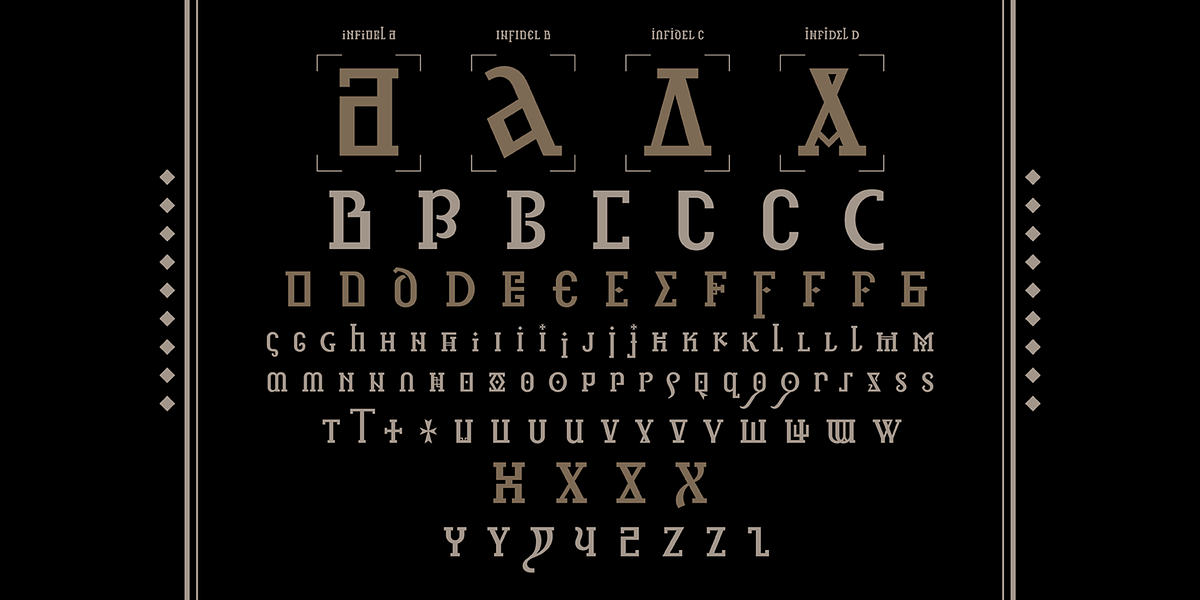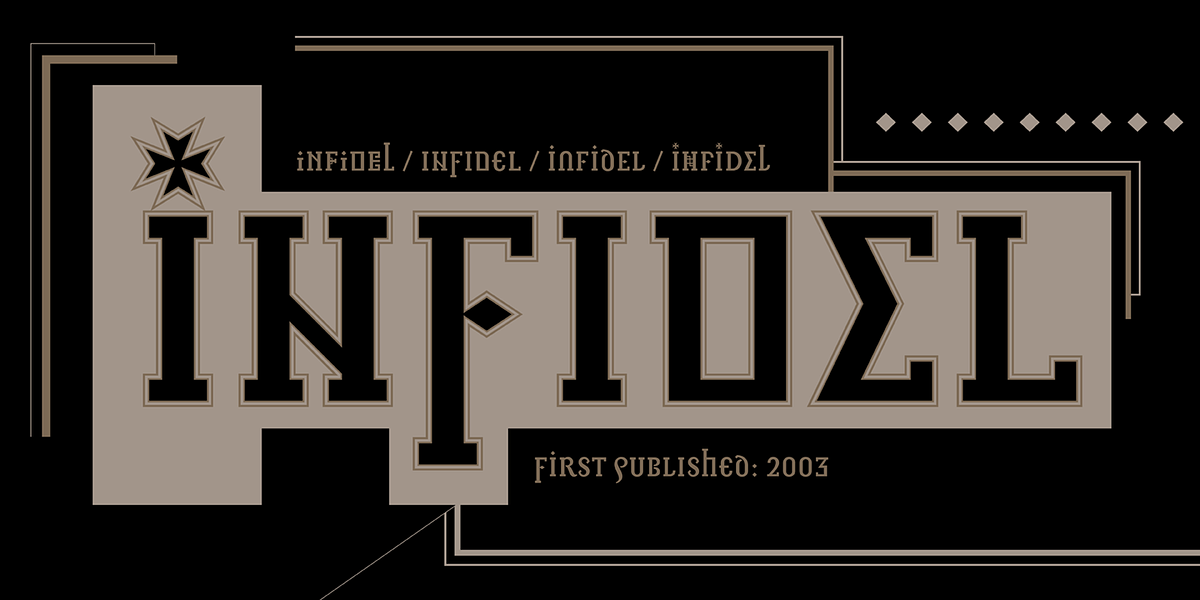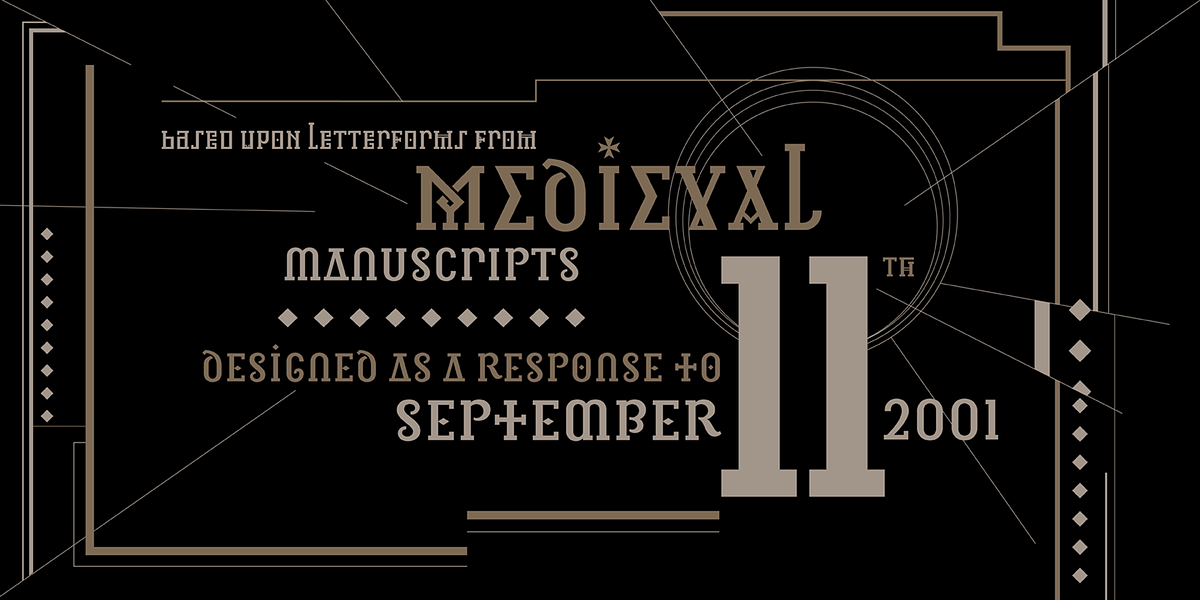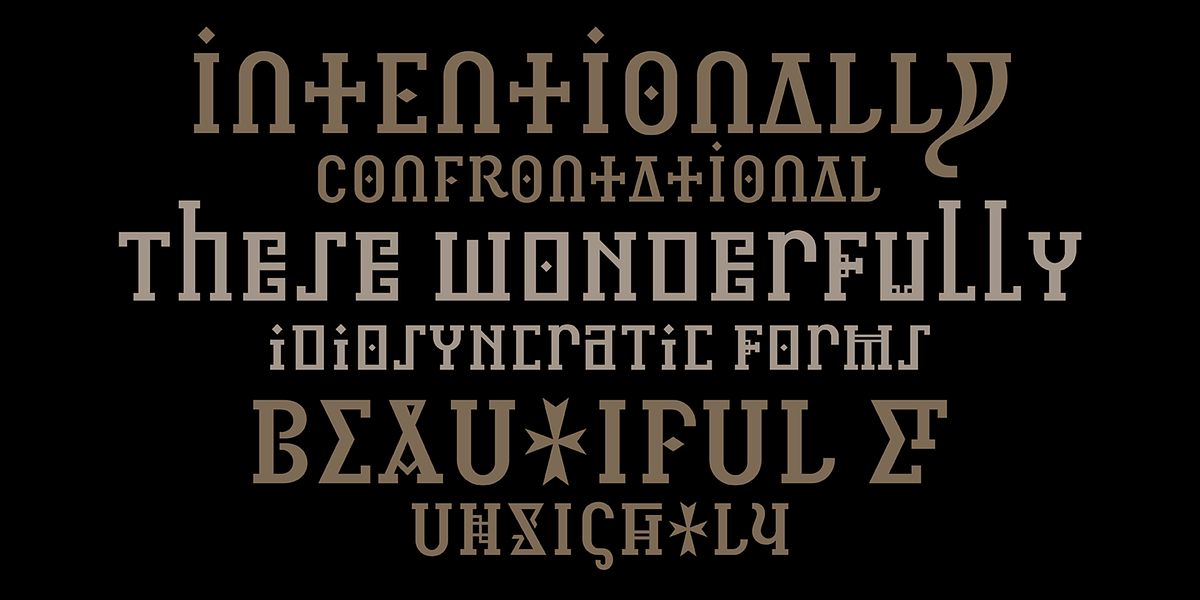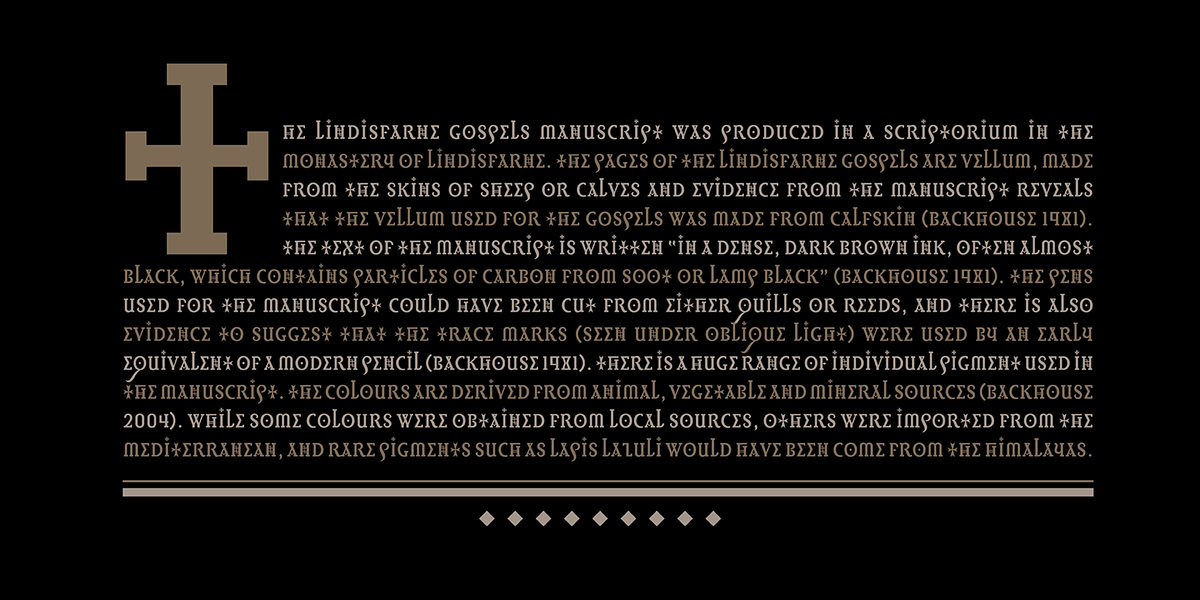
Infidel
Infidel is a historical script serif font inspired by the letterforms found in the Lindisfarne Gospels and other medieval manuscripts. The typeface features idiosyncratic forms that deviate from modern legibility standards, resulting in a unique and visually striking aesthetic. Infidel includes three complete sets of uppercase and lowercase stylistic alternates, providing further customization options.